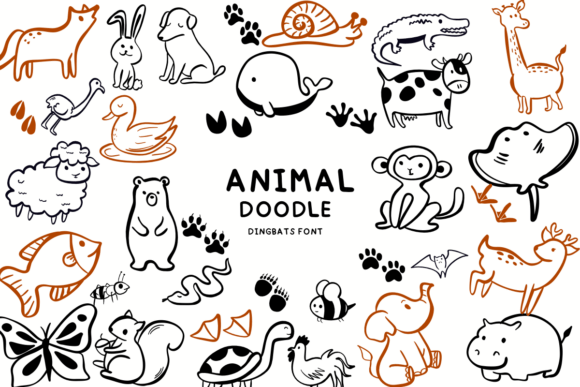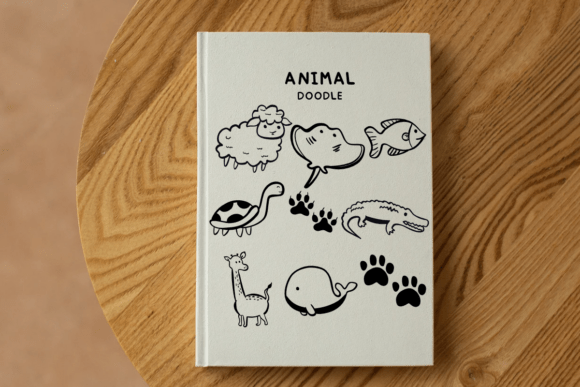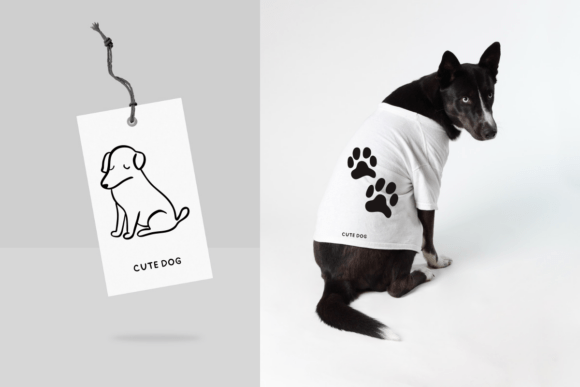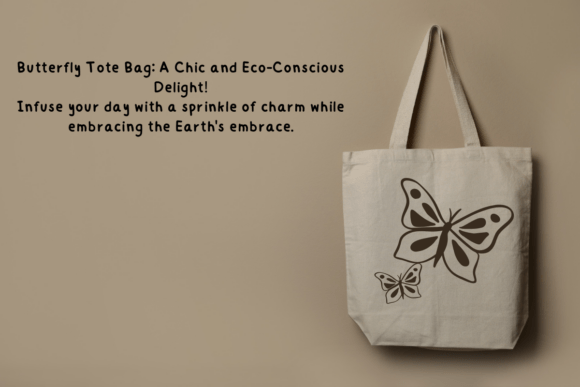
About the Animal Doodle Font
The Animal Doodle Font offers a perfect balance of form and function for your design needs. Animal doodle is a dingbats font. You can use it for taking notes, writing a diary, or making greeting cards. However, you can still use it for other designs, such as banners, content, mugs, cards, shirts, stationery, social media posts, and more!
Animal Doodle Font Usage Examples